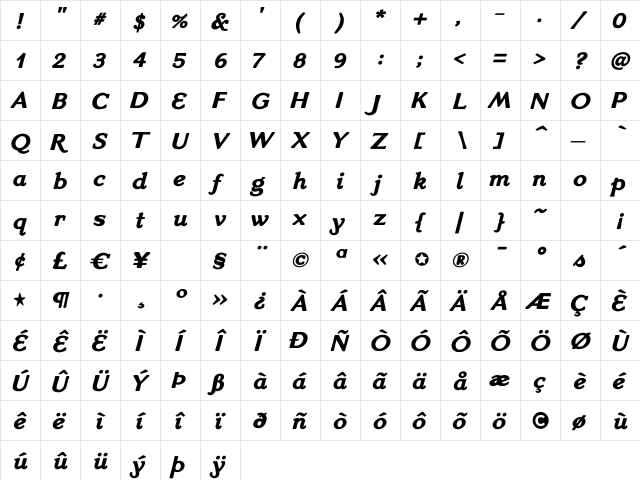
VenisExtra Bold Italic Regular Font Preview
Design Context for VenisExtra Bold Italic Typeface
VenisExtra Bold Italic is a composed and adaptable typeface that performs quietly and consistently across a wide range of design contexts. The dynamic lean of this cut emphasises speed and emphasis in any layout. The heavy weight commands attention and anchors typographic hierarchies.